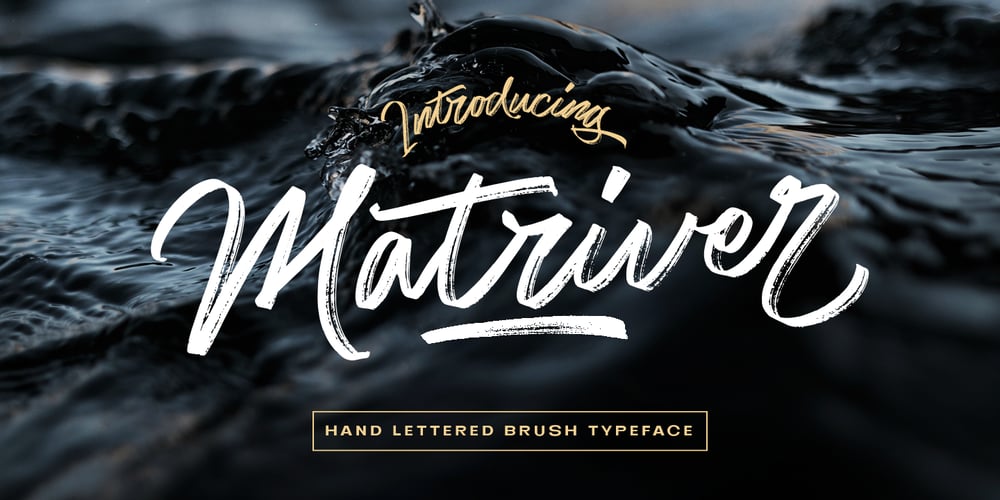
Matriver Font Family was designed by Hendra Maulia and published by Dirtyline Studio. Matriver contains 1 styles and family package options. Matriver brush with a calligraphy style, So beautiful on invitation like greeting cards, branding materials, business cards, quotes, posters, and more!Feature: Alternates and Ligatures Punctional Works on PC & Mac PUA Encoded Characters – Fully accessible without additional design software. Simple installations Accessible in the Adobe Illustrator, Adobe Photoshop, Adobe InDesign, even work on Microsoft Word. Fonts include Multilingual Support Thank you very much for looking and please tell me if you have questions, Hopefully you like our item 🙂